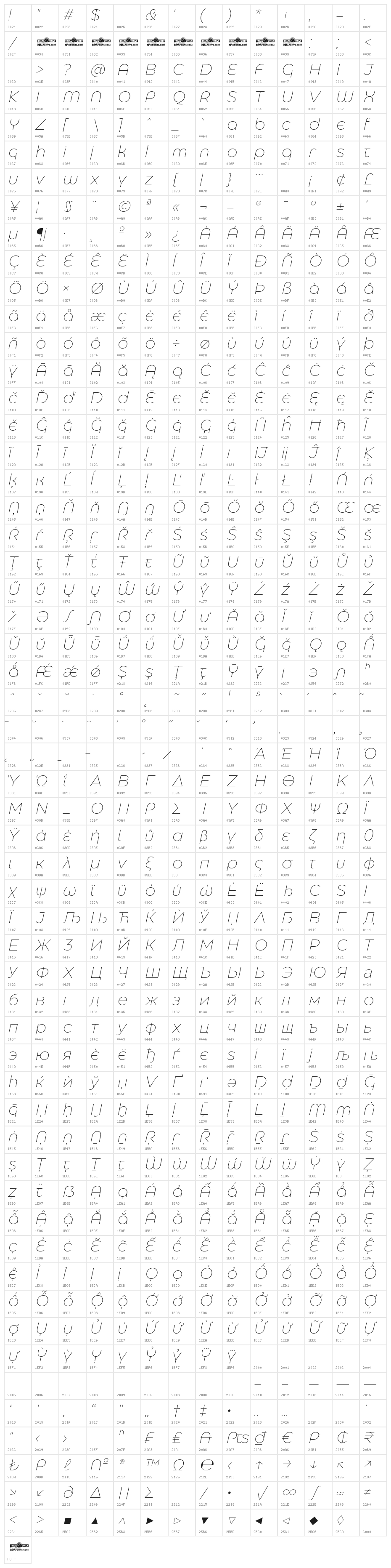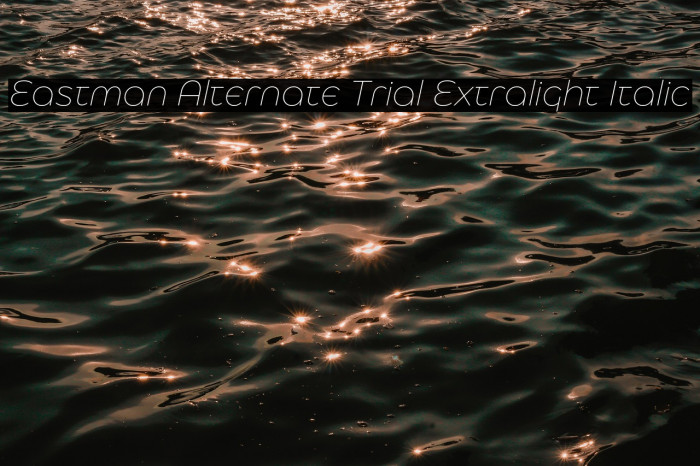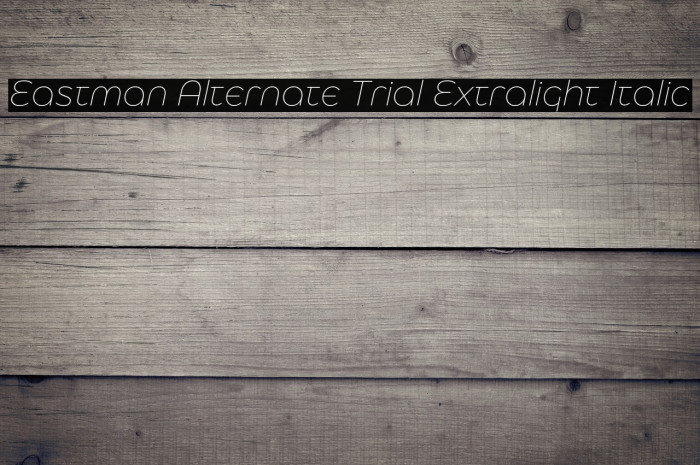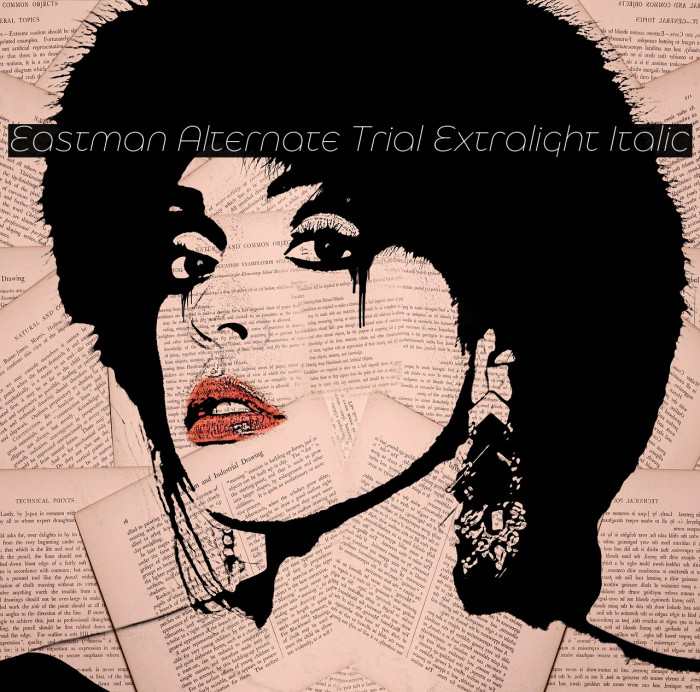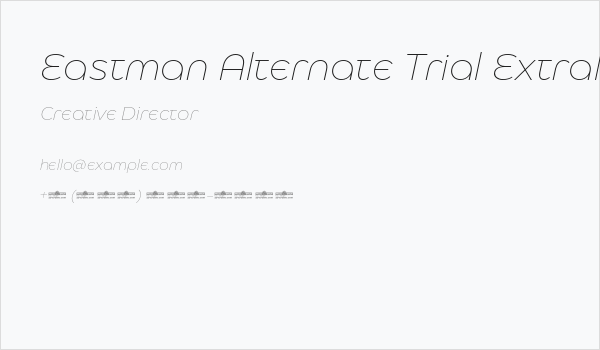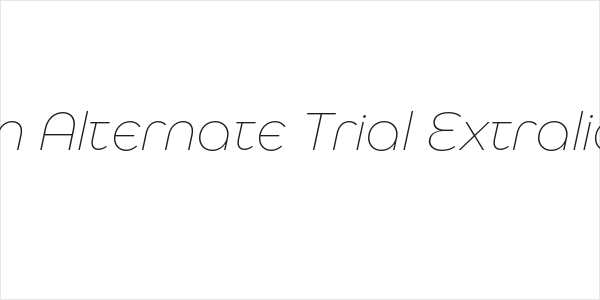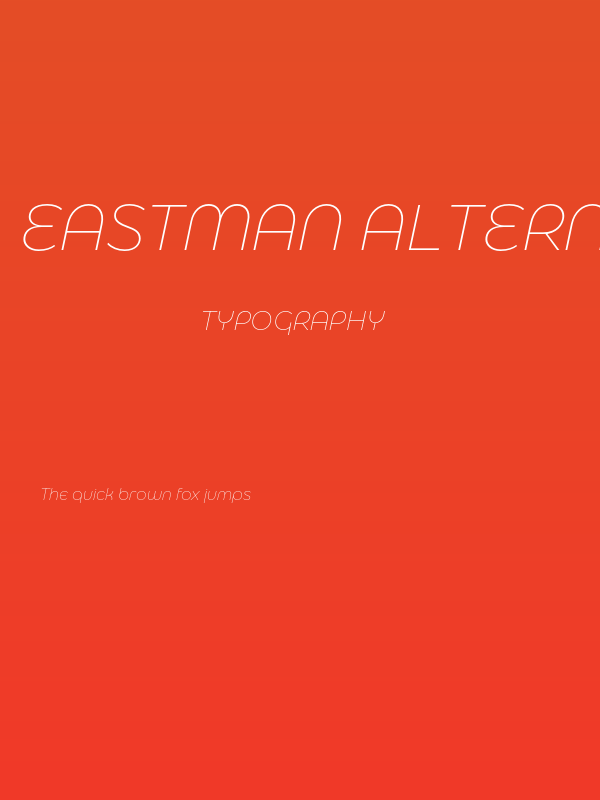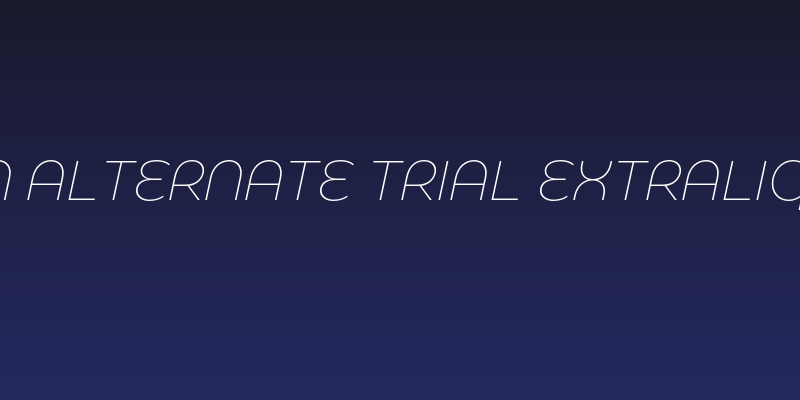
Eastman Alternate Trial Extralight Italic Font
Eastman Alternate Trial Extralight Italic Description
This font features a sleek and modern design with a minimalist aesthetic. The characters are elegantly crafted with smooth curves and a consistent stroke width, giving it a refined and sophisticated look. Its italic style adds a dynamic and fluid touch, making it suitable for creative and contemporary projects. The font's lightweight nature ensures readability while maintaining a stylish appearance. The special characters are designed with the same attention to detail, seamlessly integrating with the overall style. This font is perfect for projects that require a modern and elegant touch.
| Use Case | Headlines, Logos, Editorial design |
| Proposed Projects | Ideal for branding, fashion magazines, modern websites, and creative advertising. |